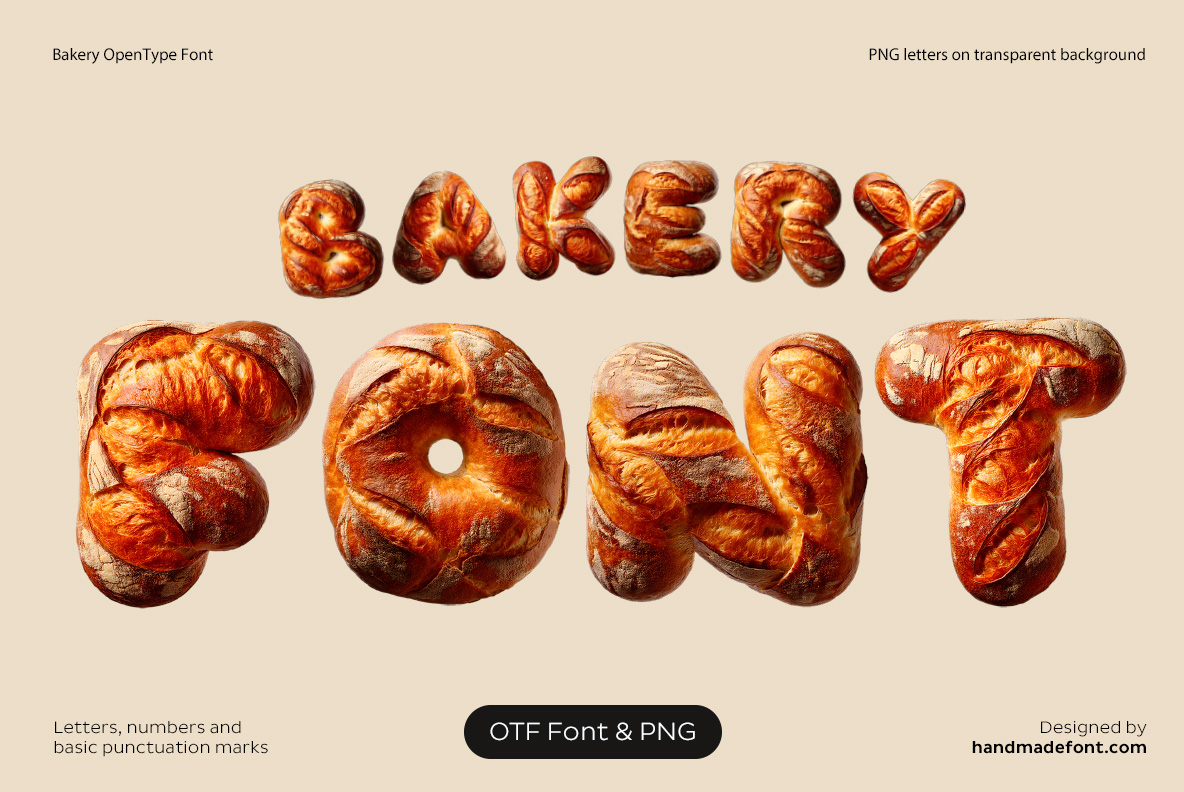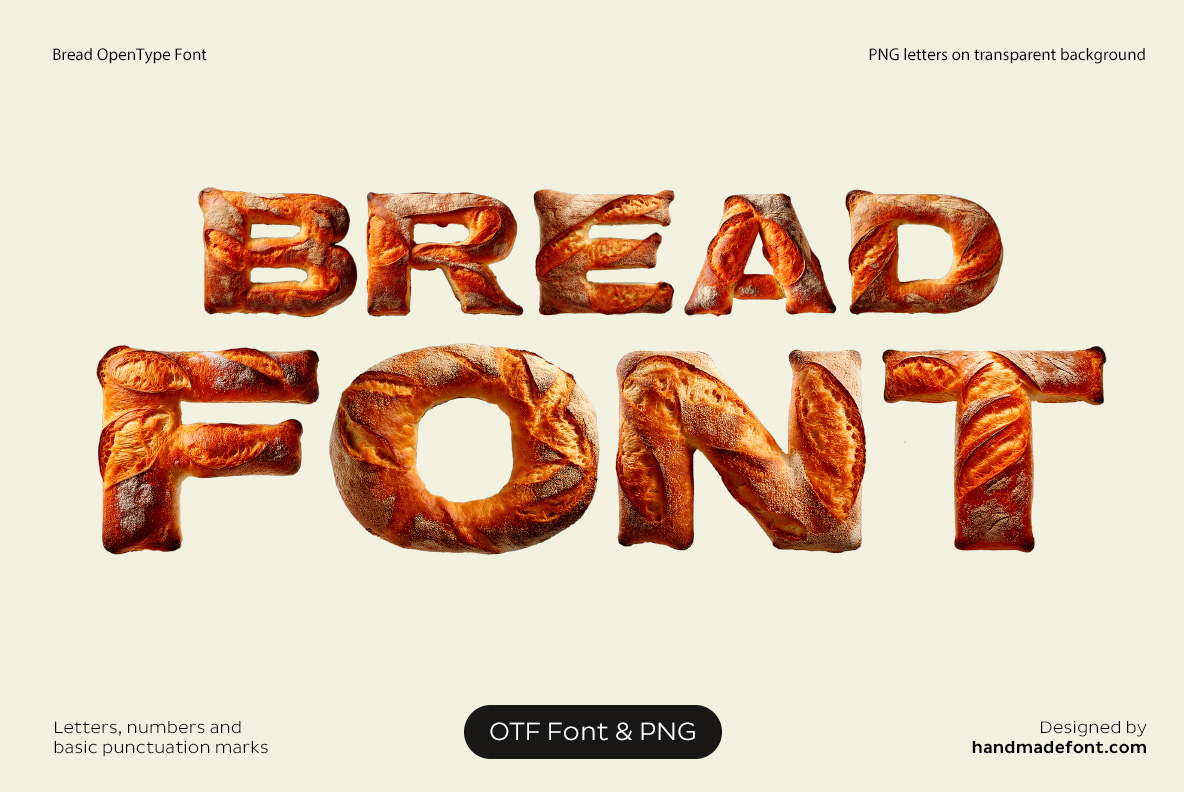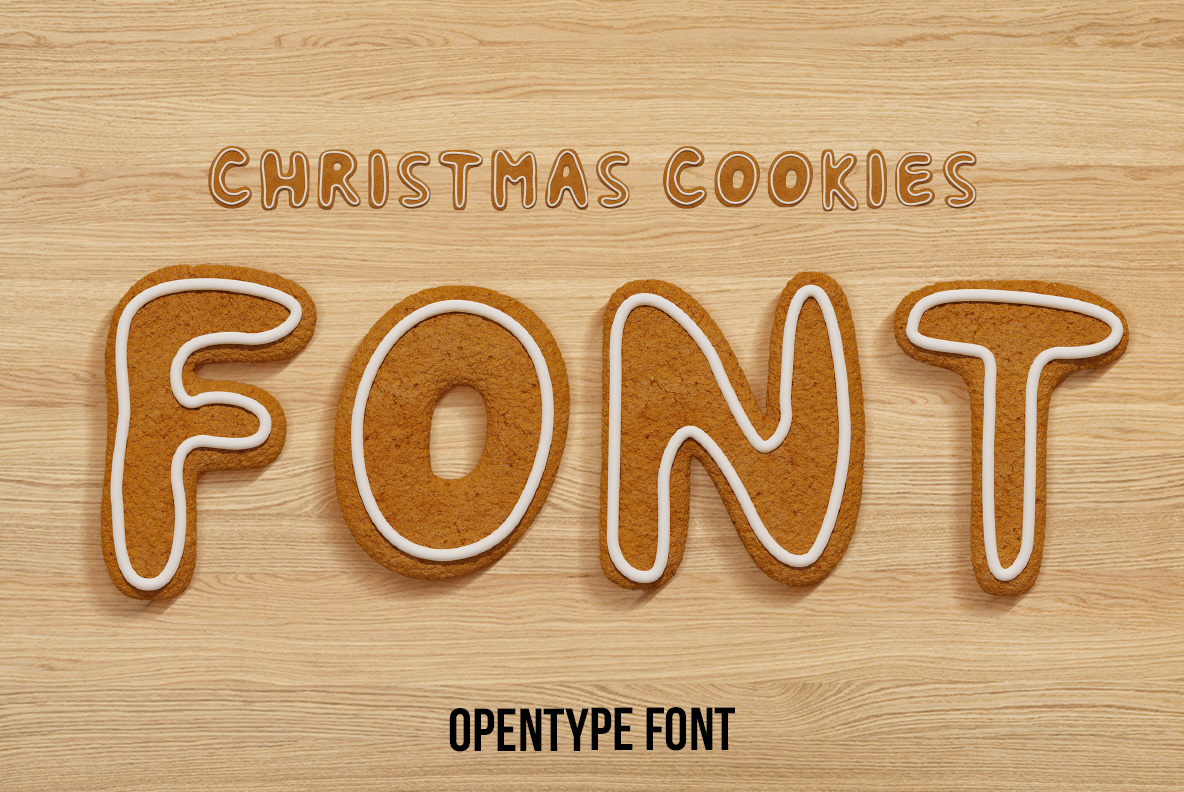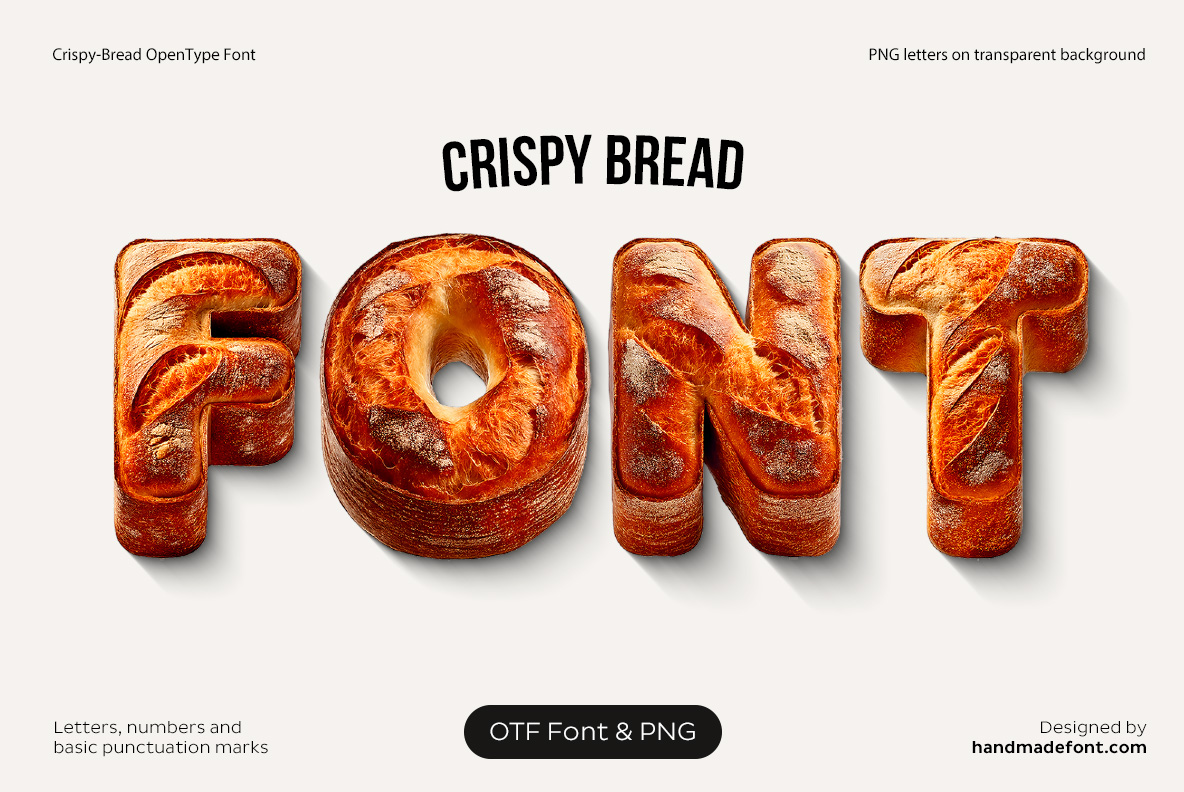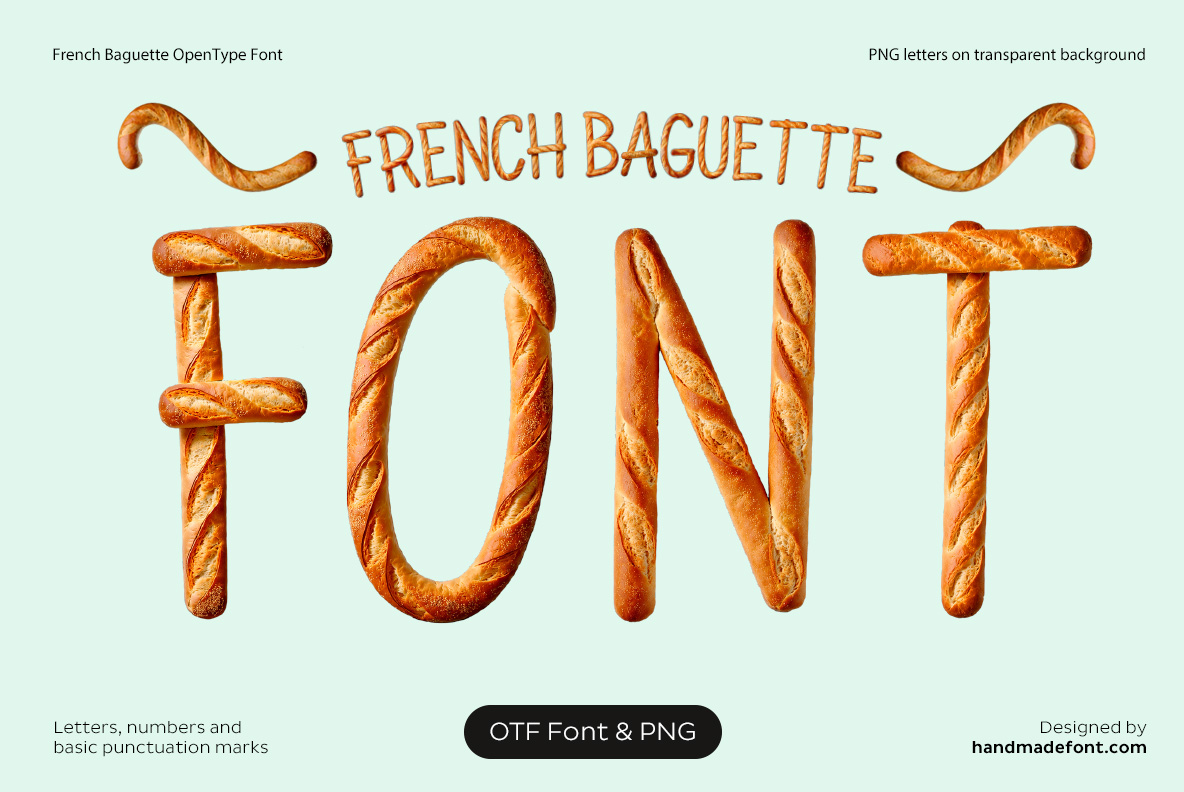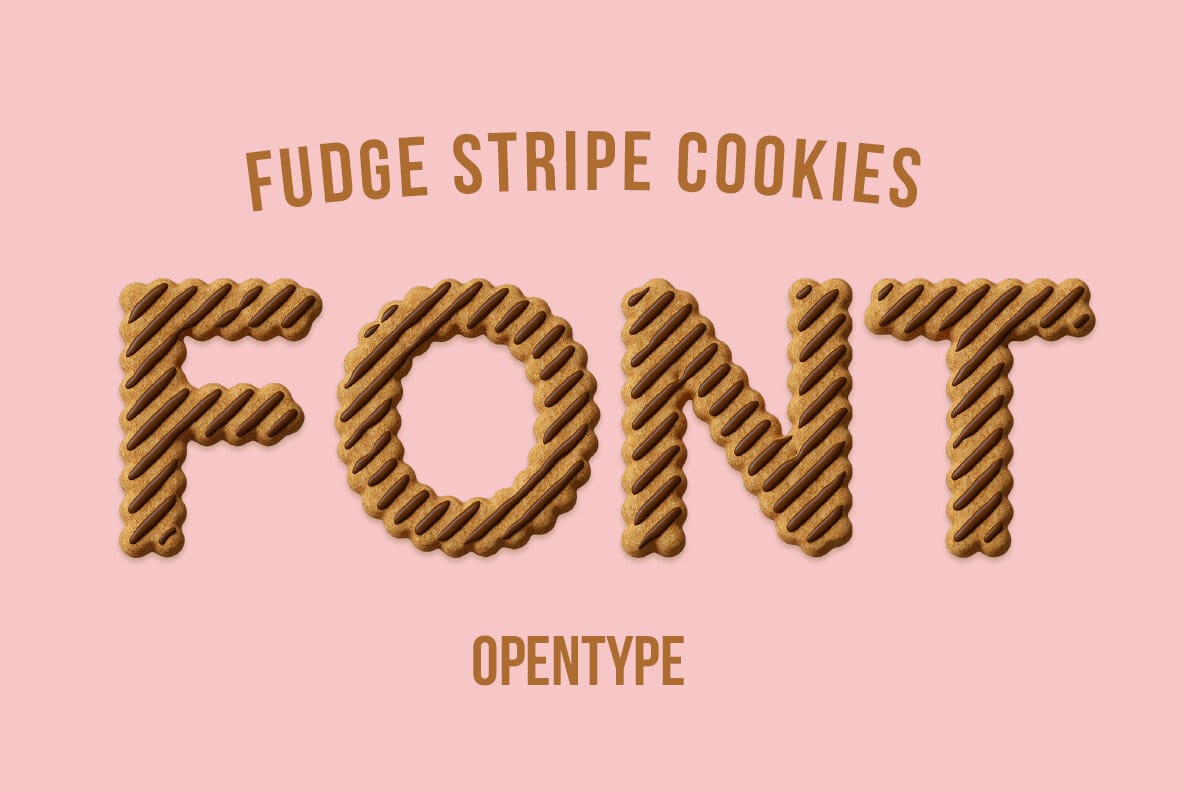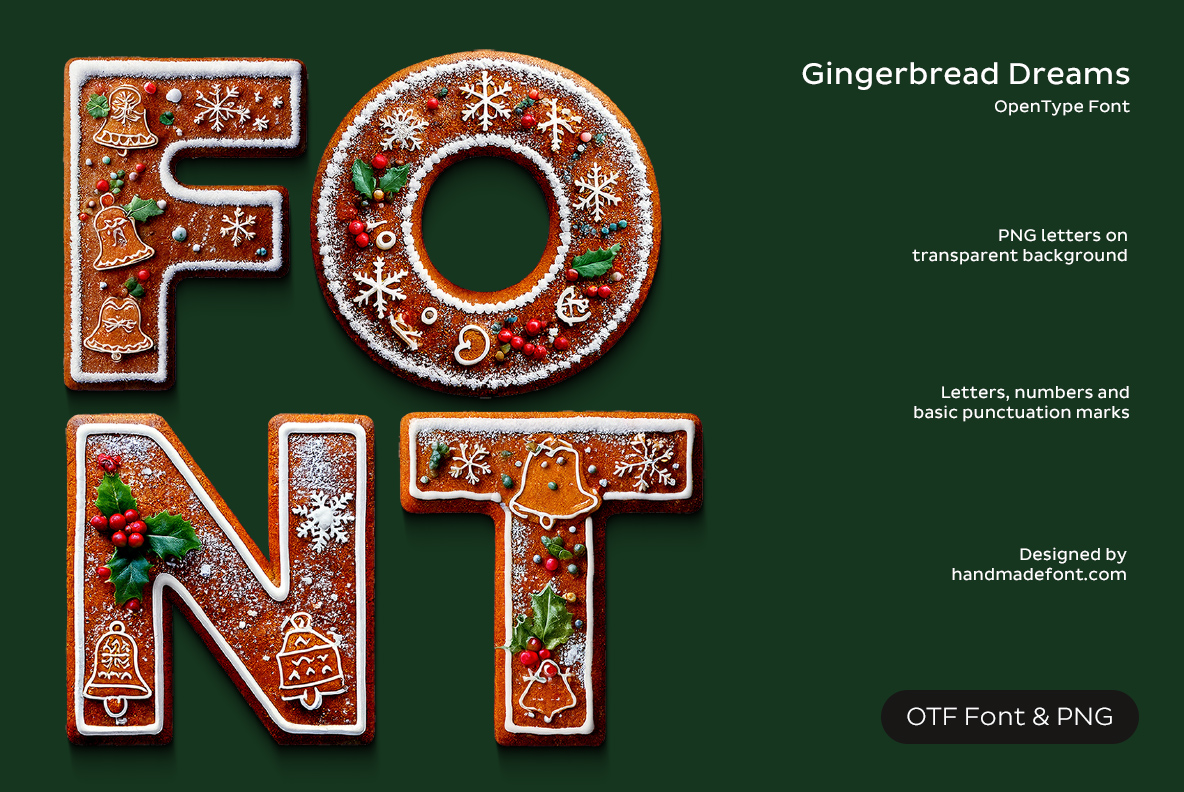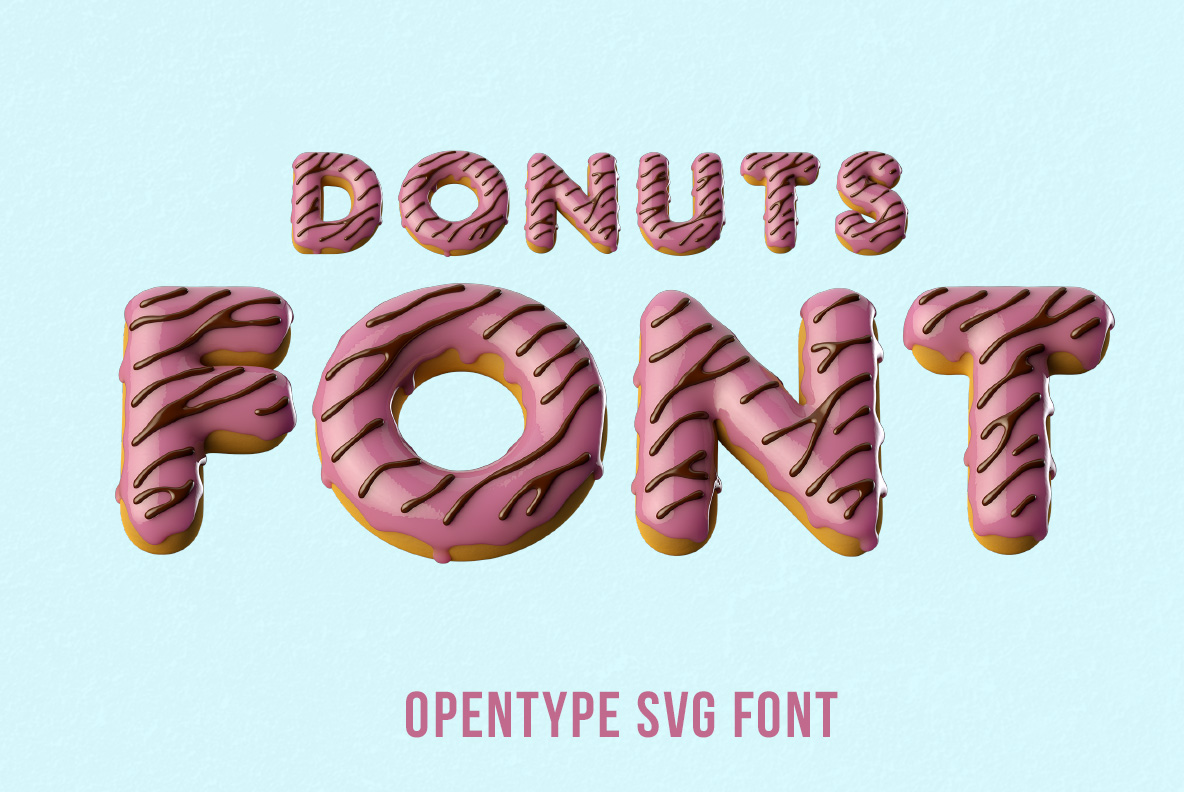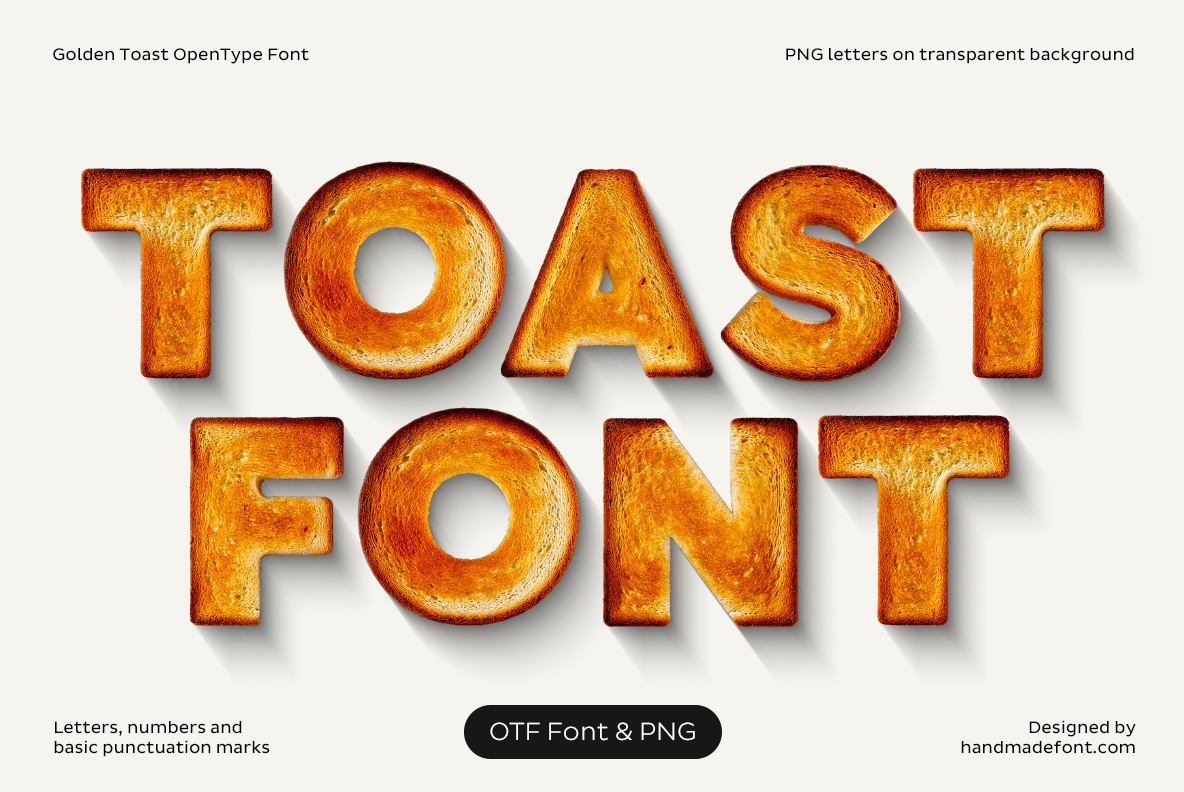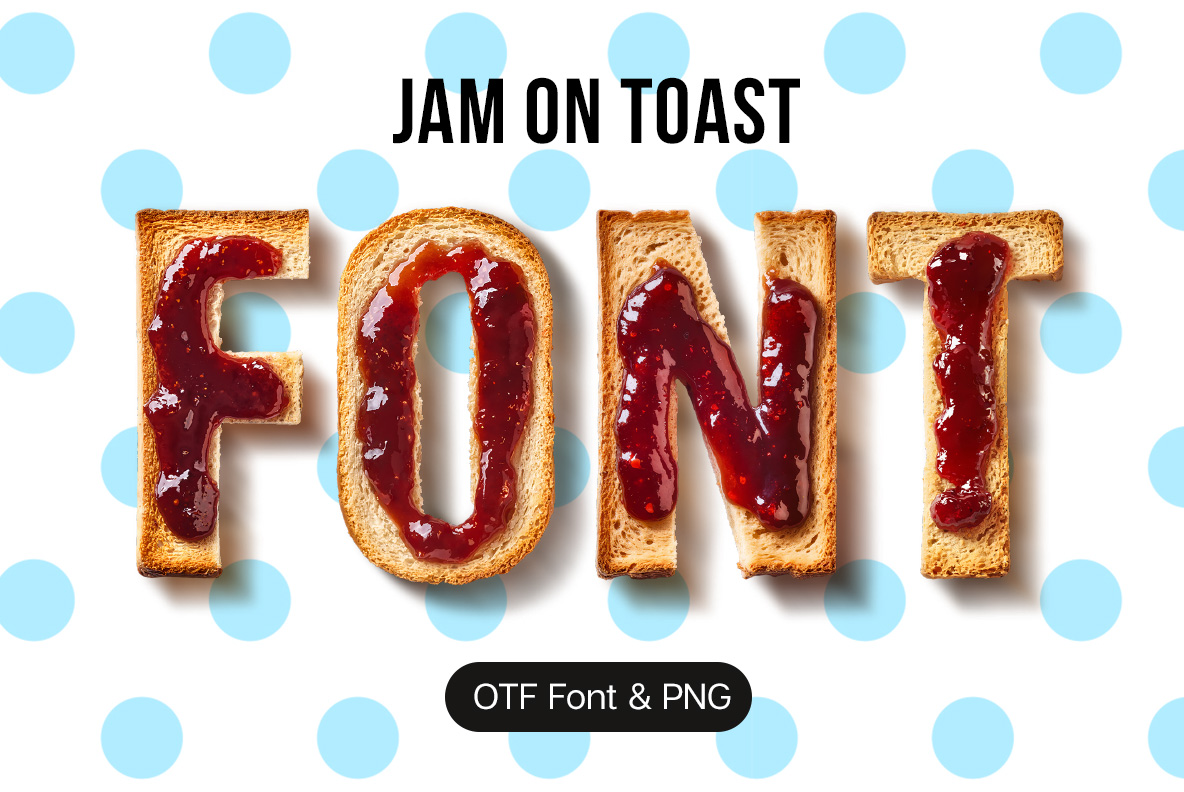
Bakery Fonts – Bread, Cookie & Pastry Typography
Bakery Fonts turn the familiar textures of bread, cookies, toast, donuts and pastries into imaginative typography. From crispy crusts and golden baguettes to glossy icing, chocolate and jam, every alphabet has its own delicious character. Created for bakery branding, food packaging, café menus, posters, advertising and playful editorial design, this collection gives designers an unusual way to make words look almost good enough to eat.
Every one of these bakery fonts started as real food, not as a bread-coloured texture dropped onto a letter. In fact, each alphabet was built from the actual dough, icing or crumb and then photographed, so the crust has genuine blisters, the icing has genuine gloss, and the crumb catches light the way crumb does. As a result they hold up large: put one on a shopfront window or a menu cover and it still reads as food rather than as an effect. So the whole set is below — open any of them for the full character set, the mockups and the download.
Bakery Fonts, Straight Out of an Oven
Gingerbread Dreams Font
Decorated gingerbread cookies, piped icing and festive trim, turned into warm and whimsical lettering.
Crispy Bread Font
Golden crust, toasted surfaces and fresh-baked texture in rustic bakery capitals.
Bold Bread Font
Generous braided loaf forms make substantial letters with an unmistakable bakery character.
Premium Caviar Font
Toasted bread, butter and glossy red caviar combined into extravagant gourmet typography.
Golden Toast Font
Perfectly toasted bread becomes crisp, warm lettering with a cheerful breakfast mood.
Artisan Loaf Font
Scored crusts, burst slashes and a dusting of flour across heavy display capitals.
Pizza Font
Crust, melted cheese and colourful toppings folded into playful Italian food typography.
French Baguette Font
Rustic crust, slashed tops and a touch of Parisian bakery character across the alphabet.
Jam on Toast Font
Golden toast and glossy fruit jam mixed into sweet, colourful breakfast lettering.
Fudge Stripe Cookies Font
Striped biscuits under chocolate drizzle build characters with a proper snack-tin feel.
Sugar Cookies Font
Decorated cookies turned into charming letters with a homemade, festive bakery feel.
Christmas Cookie Font
Gingerbread-inspired forms and icing details in cosy seasonal bakery typography.
Glazed Pink Donut Font
Soft doughnut letters under glossy pink icing and dark chocolate drizzle.
Profiterole Font
Chocolate-glazed cream puffs stacked into rich, playful lettering for dessert lovers.
Where Bakery Fonts Actually Get Used
Bakeries and cafes are the obvious buyers, so these end up on window vinyl, menu boards, loyalty cards and paper bags. Meanwhile, food packaging is the second home, since a word built out of the product needs no photograph beside it. Beyond that: recipe books, delivery apps, farmers-market posters, children’s publishing and any campaign that wants to look warm rather than clever.